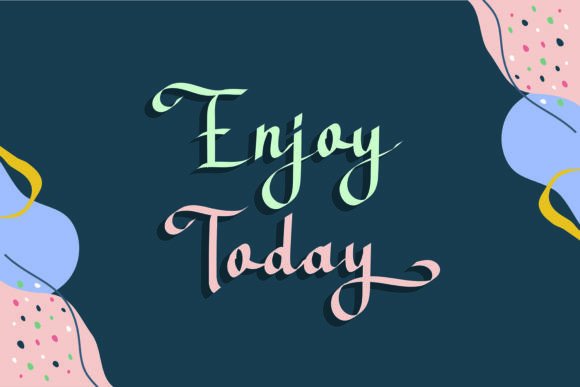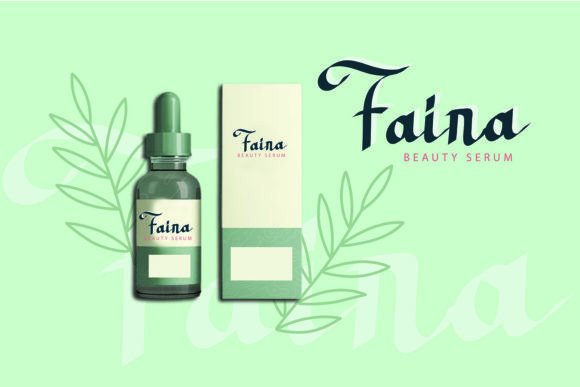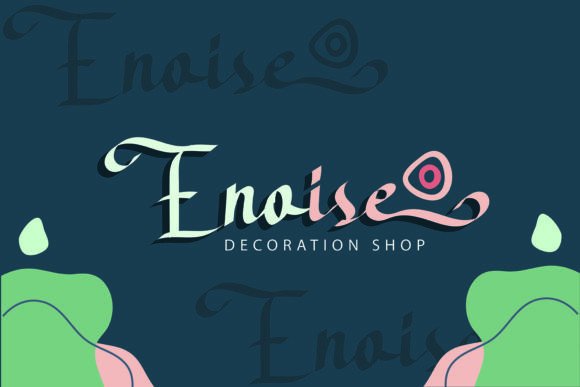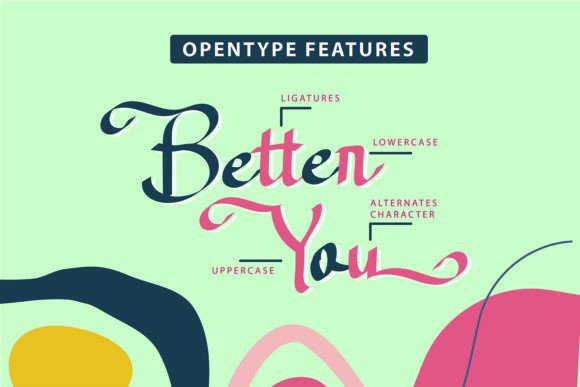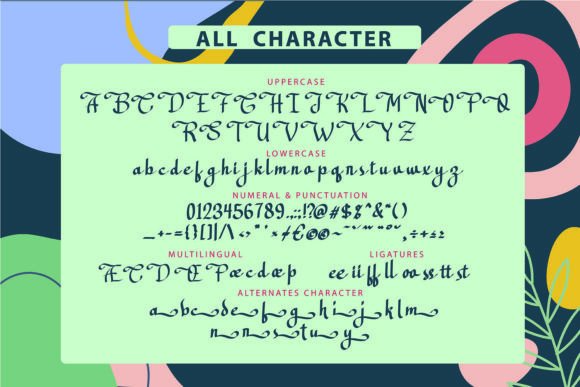
Introducing Findster Font: A Timeless Classic for Elegant Designs
Are you a designer or crafter looking for a font that exudes sophistication and elegance? Look no further than Findster Font, a classic script font that is sure to elevate your projects to the next level. With its unique, elegant swirls and loops, Findster Font is the perfect choice for anyone seeking to add a touch of timelessness to their designs.
The Characteristics of Findster Font
Findster Font is a beautifully crafted script font that boasts thin lines and smooth curves, making it perfect for use in a variety of projects. Its elegant swirls and loops give it a unique and sophisticated look that is sure to make any project stand out. Whether you’re working on a logo, a wedding invitation, or a branding project, Findster Font is the perfect choice.
What Makes Findster Font Special?
One of the things that sets Findster Font apart from other fonts is its unique style. The font’s designer has carefully crafted each letter to ensure that it is not only beautiful but also highly legible. Additionally, Findster Font is PUA encoded, which means that you can access all glyphs and swashes effortlessly. This makes it easy to customize your text and add your own personal touch to your designs.
The Benefits of Using Findster Font
There are many benefits to using Findster Font in your designs. Here are just a few:
- Elegance: Findster Font is the perfect choice for anyone seeking to add a touch of elegance to their designs. Its sophisticated look and feel make it perfect for use in high-end branding projects, luxury packaging, and more.
- Legibility: Despite its elegant look, Findster Font is highly legible, making it perfect for use in body text as well as headlines.
- Versatility: Findster Font can be used in a wide range of projects, from logos and branding to wedding invitations and packaging.
- Customization: With its PUA encoding, Findster Font is easy to customize, allowing you to add your own personal touch to your designs.
- Use it for headlines: Findster Font is perfect for use in headlines, where its elegant look and feel can really shine.
- Add swashes and glyphs: With its PUA encoding, Findster Font makes it easy to add swashes and glyphs to your text, giving it a unique and personalized look.
In conclusion, Findster Font is a timeless classic that is sure to elevate your designs to the next level. Its elegant swirls and loops, thin lines, and smooth curves make it perfect for use in any project that needs a hint of sophistication. With its PUA encoding and highly legible design, Findster Font is the perfect choice for designers and crafters seeking to add a touch of elegance to their work.